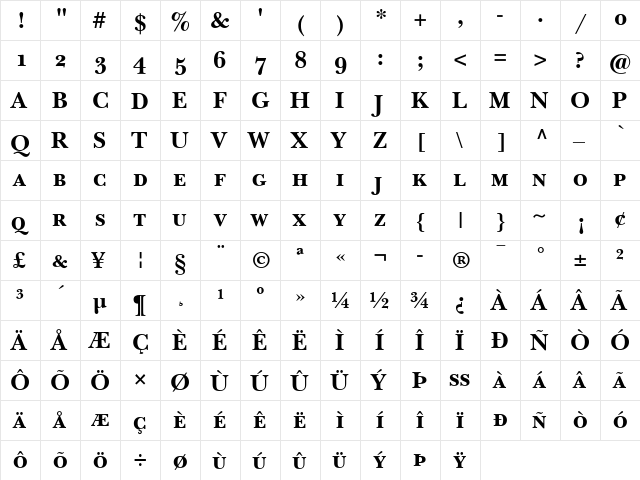
NewBaskerville SC Bold Font Preview
NewBaskerville SC Bold
NewBaskerville SC Bold Font Details
Design Context for NewBaskerville SC Typeface
NewBaskerville SC offers clean, dependable letterforms without strong stylistic allegiance, making it a practical choice for designers who need flexibility. The heavy weight commands attention and anchors typographic hierarchies.
Pro Tip: Use NewBaskerville SC in both headline and body roles to test its range before committing to a single application.